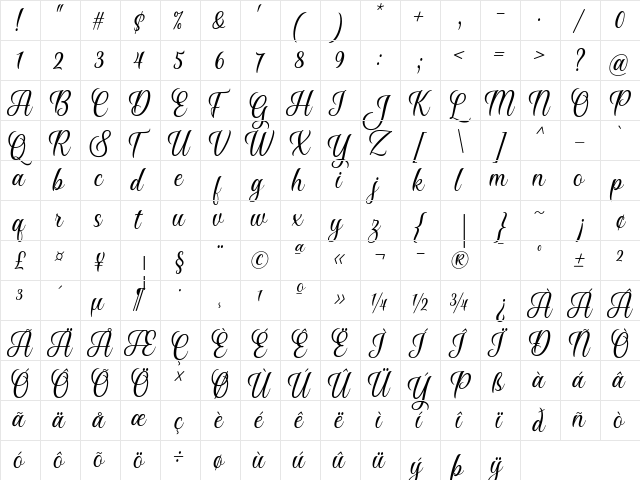
Say Yes Regular Font Preview
Say Yes Regular
Say Yes Regular Font Details
| Foundry | 7NTypes |
| Designer | Situjuh Nazara |
Design Context for Say Yes Typeface
Say Yes is a composed and adaptable typeface that performs quietly and consistently across a wide range of design contexts.